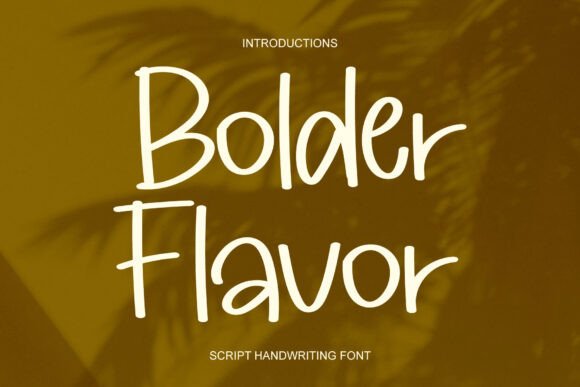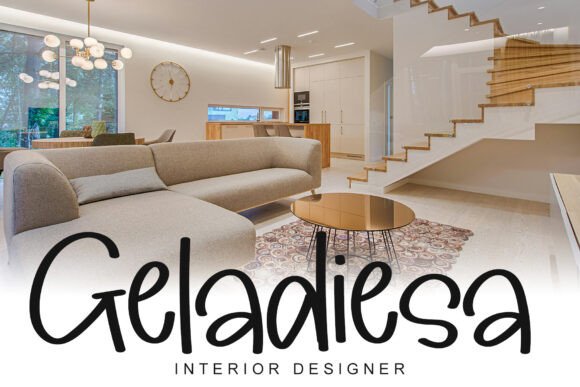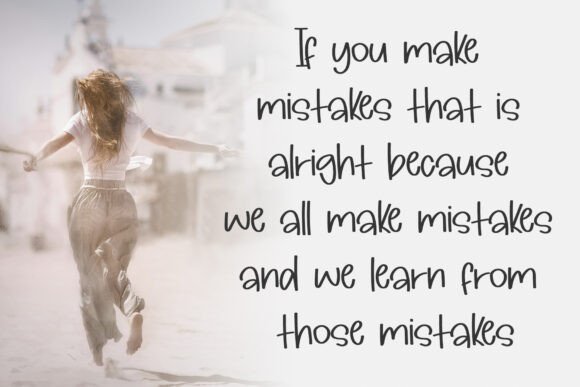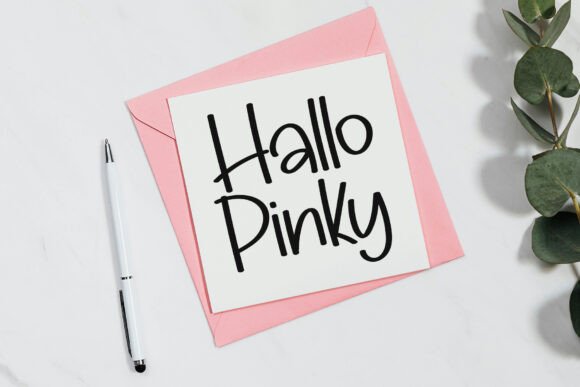
Bolder Flavor Font: Modern Handwritten Script for Creative Branding
About the Bolder Flavor Font
Step up your design game with Bolder Flavor Font, a font that exudes confidence and style. Bolder Flavor is a font that captivates with its bold, fluid strokes and dynamic script style. Designed to exude strength, elegance, and charisma, this font blends the beauty of handwritten calligraphy with a modern and assertive touch. Whether you need a striking logo, a stylish headline, or an eye-catching branding element, Master Daddy delivers with confidence and flair.
Bolder Flavor excels in headlines, logos, and short, impactful text for branding materials and posters. Its strong character makes it ideal for projects needing a confident and sophisticated feel, such as premium food and beverage packaging, high-end fashion, or luxury goods. Avoid using it for body text or long paragraphs; its highly stylized nature compromises readability in extended use.
Pairing Bolder Flavor with a clean sans-serif like Montserrat or a neutral serif like Garamond provides a sophisticated contrast. For a more playful feel, consider pairing it with a geometric sans-serif like Futura or a handwritten script that complements its bold energy.
The font’s core personality is assertive elegance; it’s bold and confident but maintains a refined quality, making it suitable for brands aiming for a balance between power and sophistication.
Bolder Flavor Font Usage Examples
Bolder Flavor Font Example